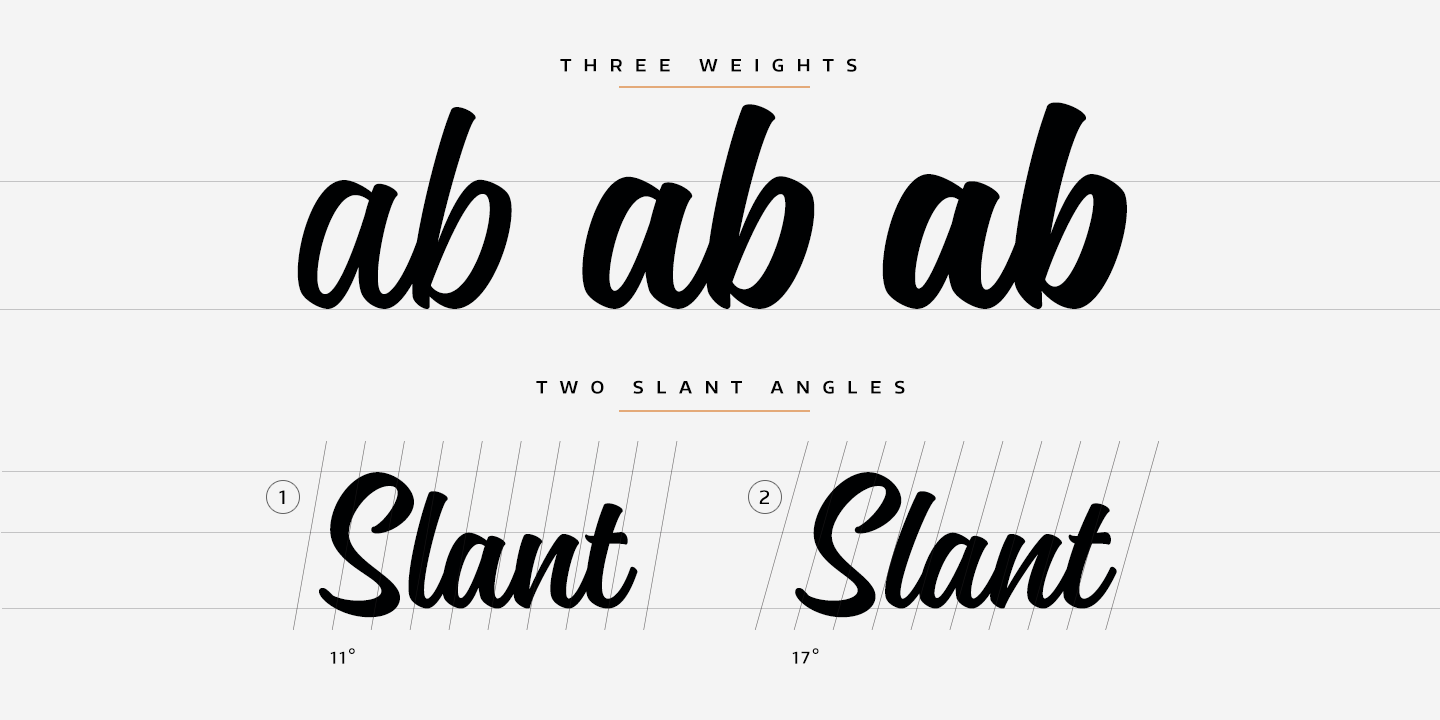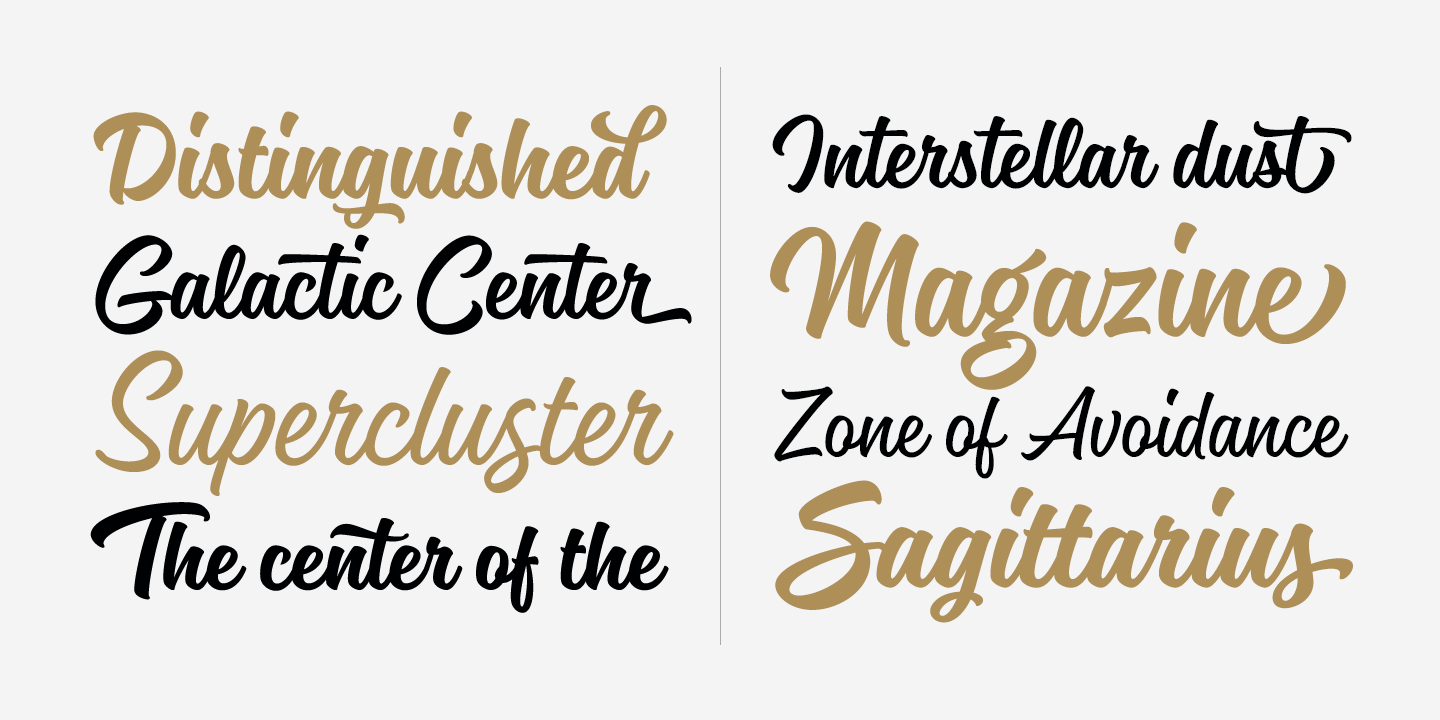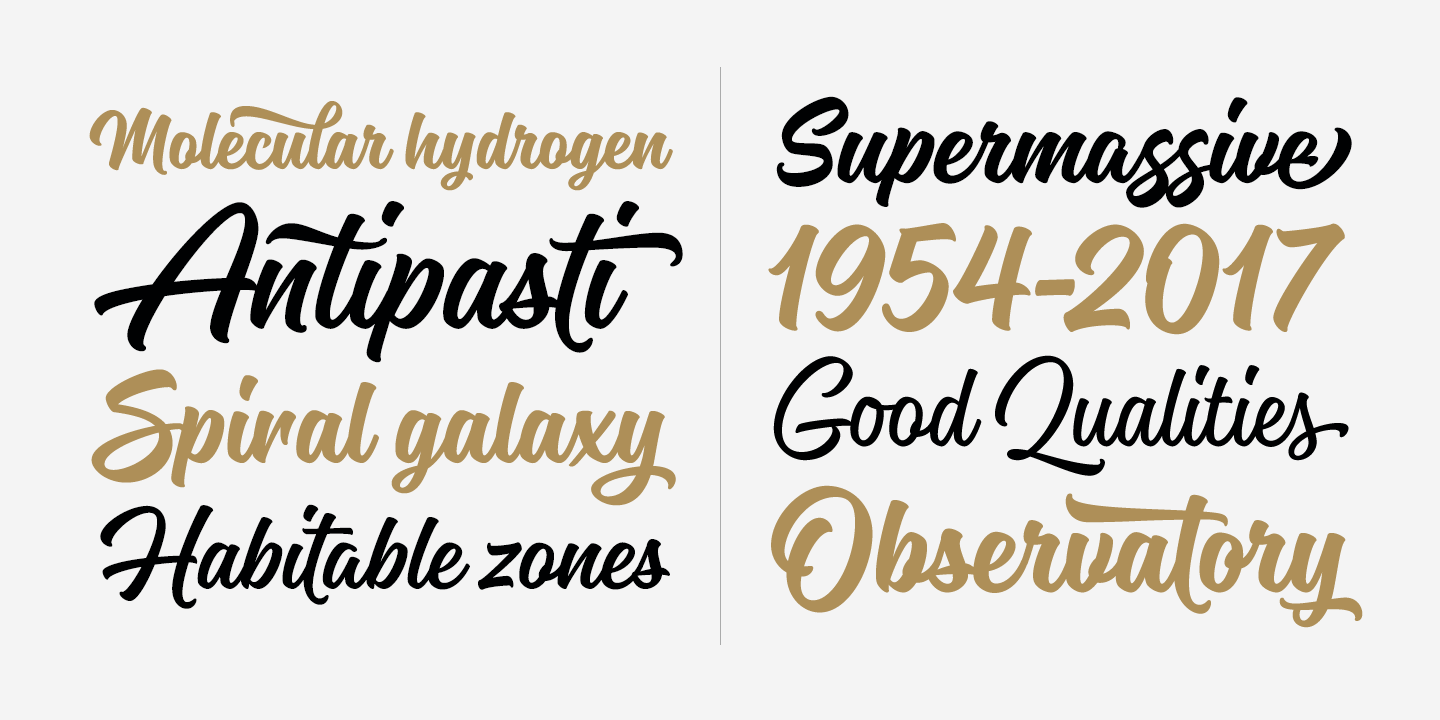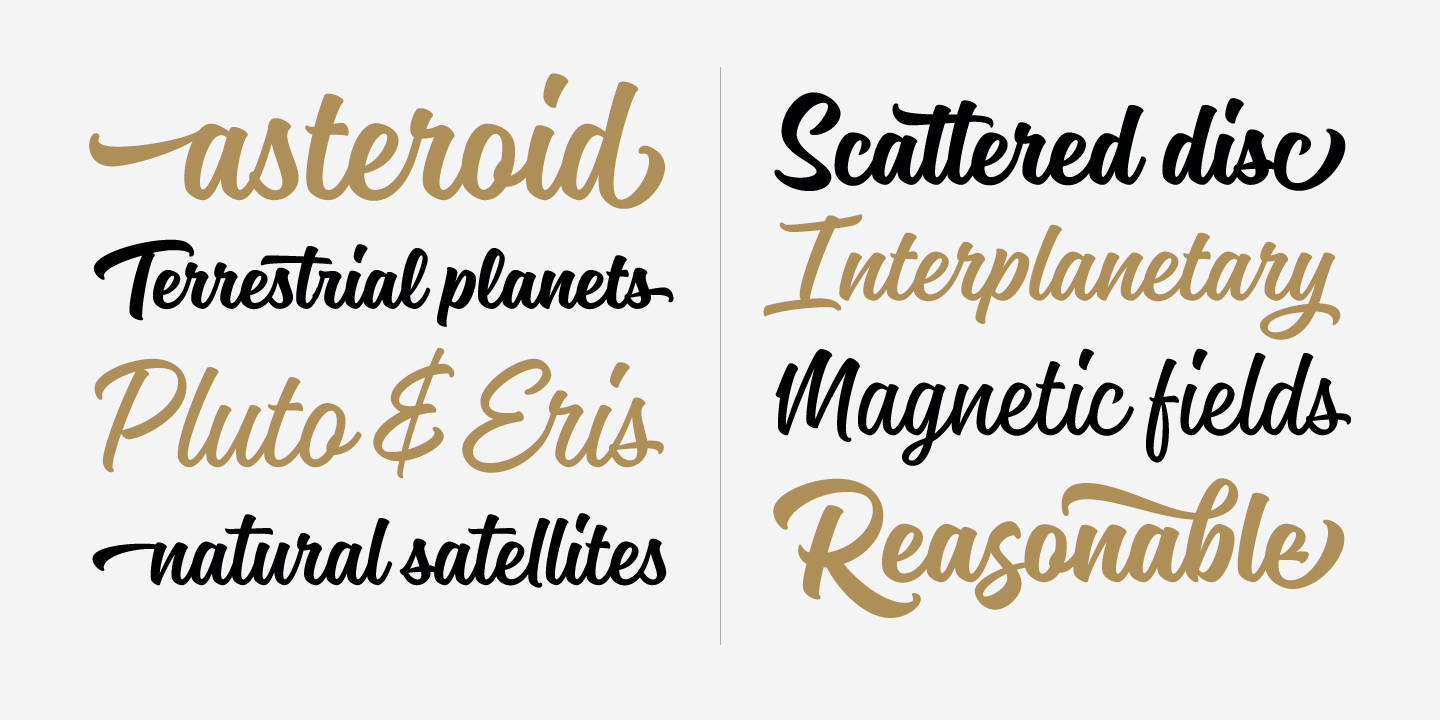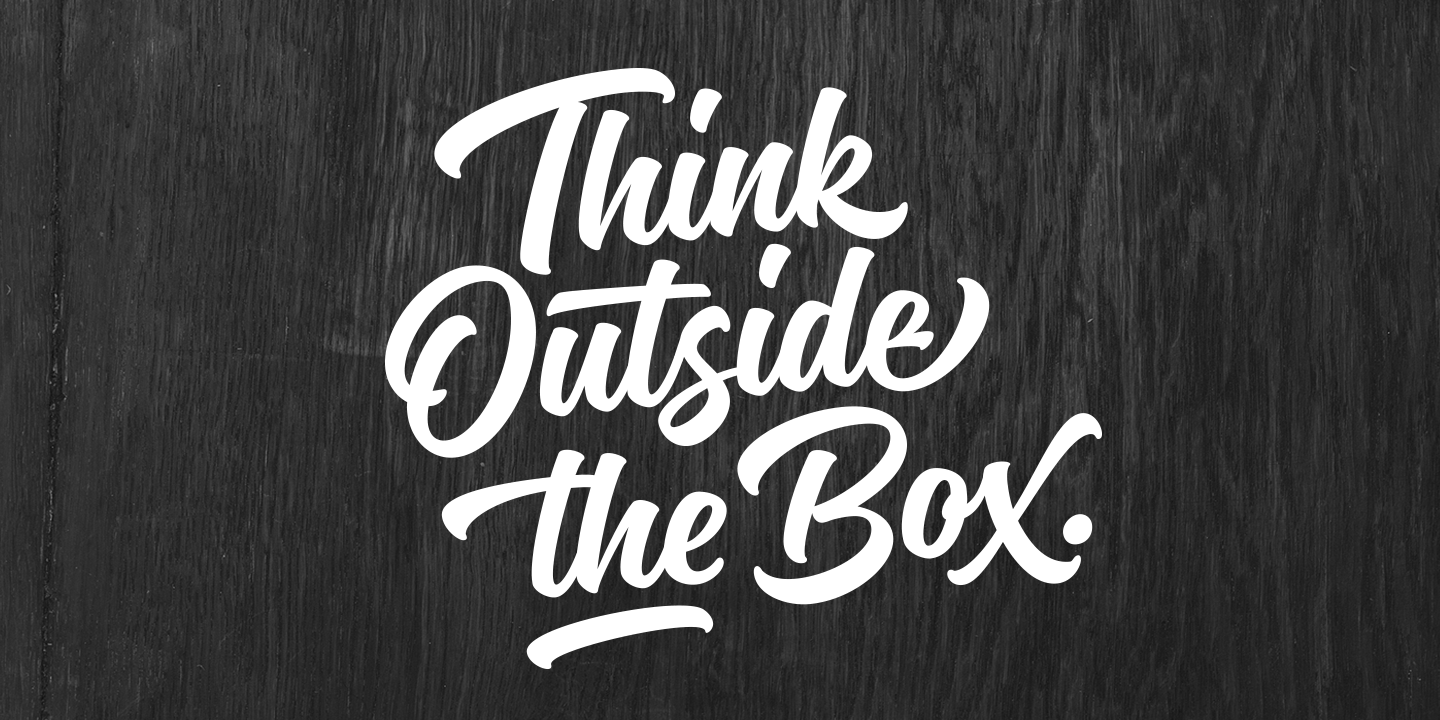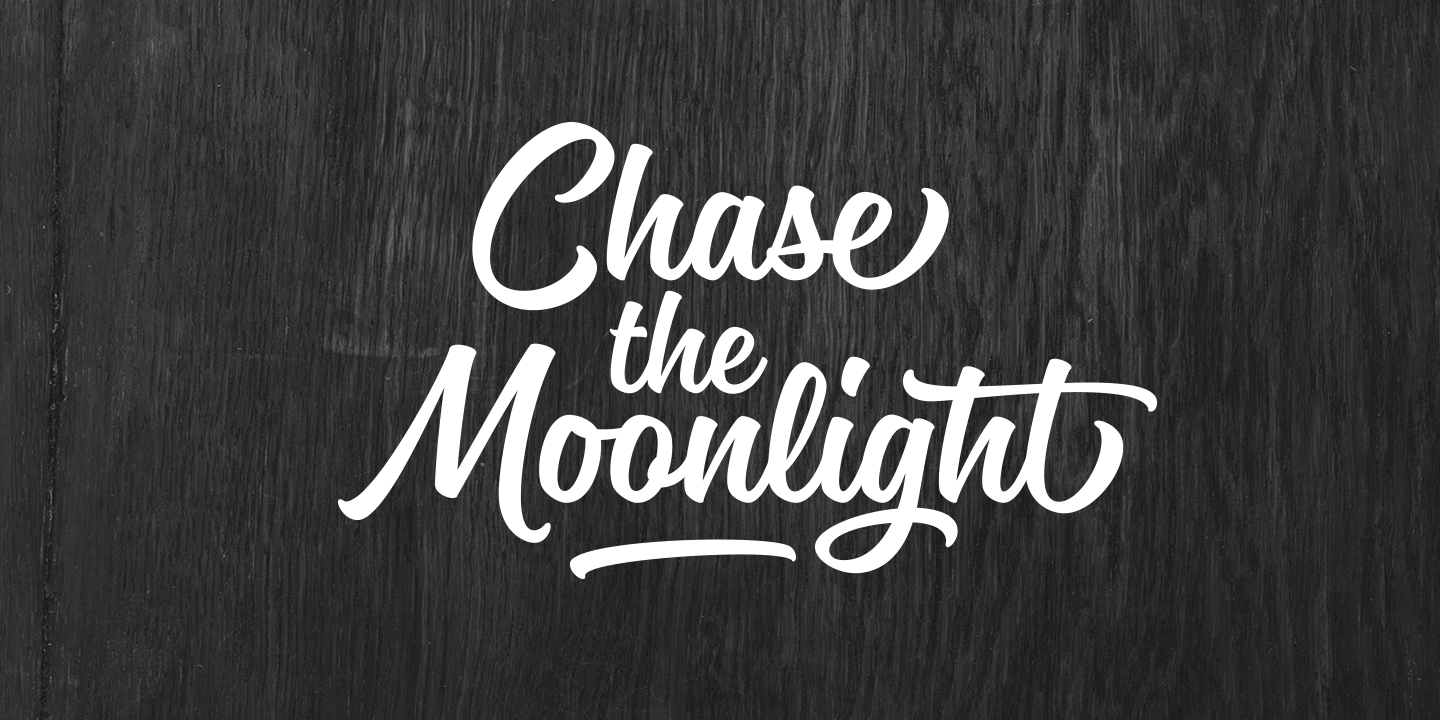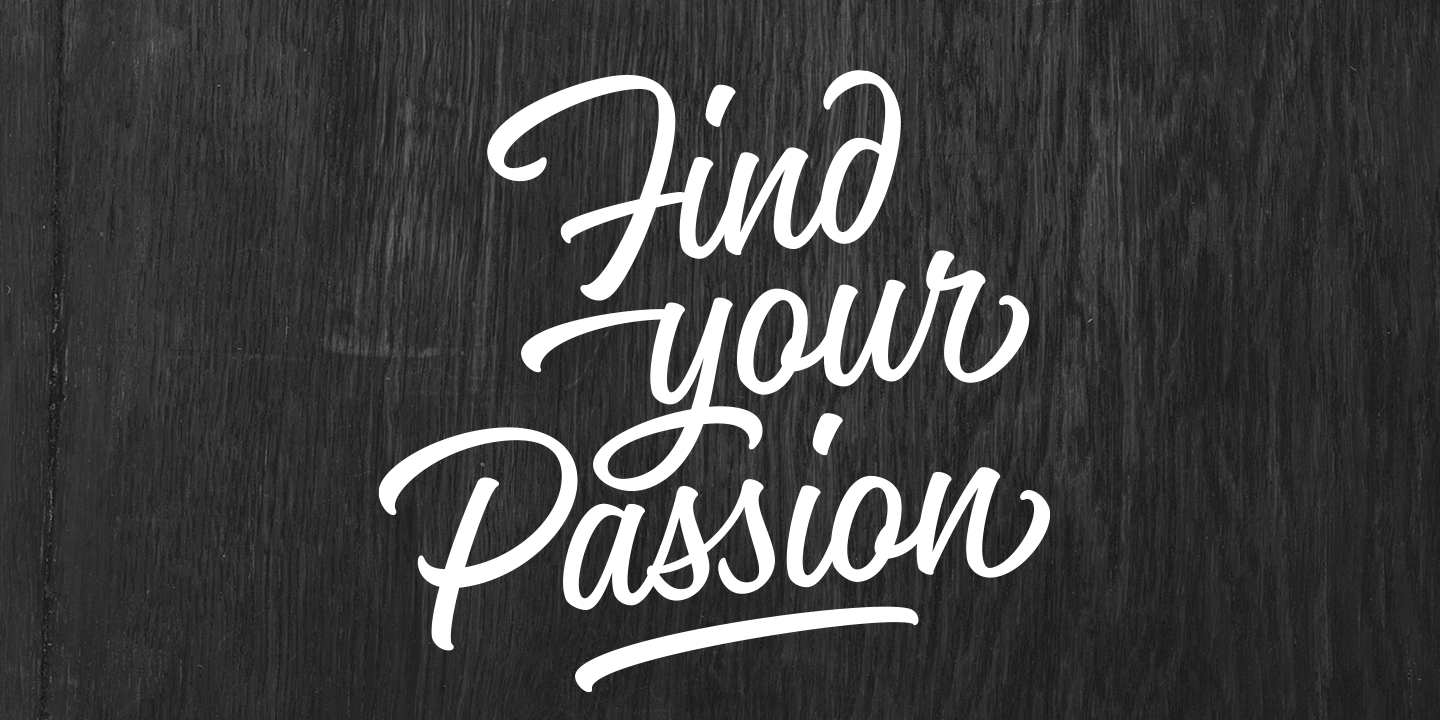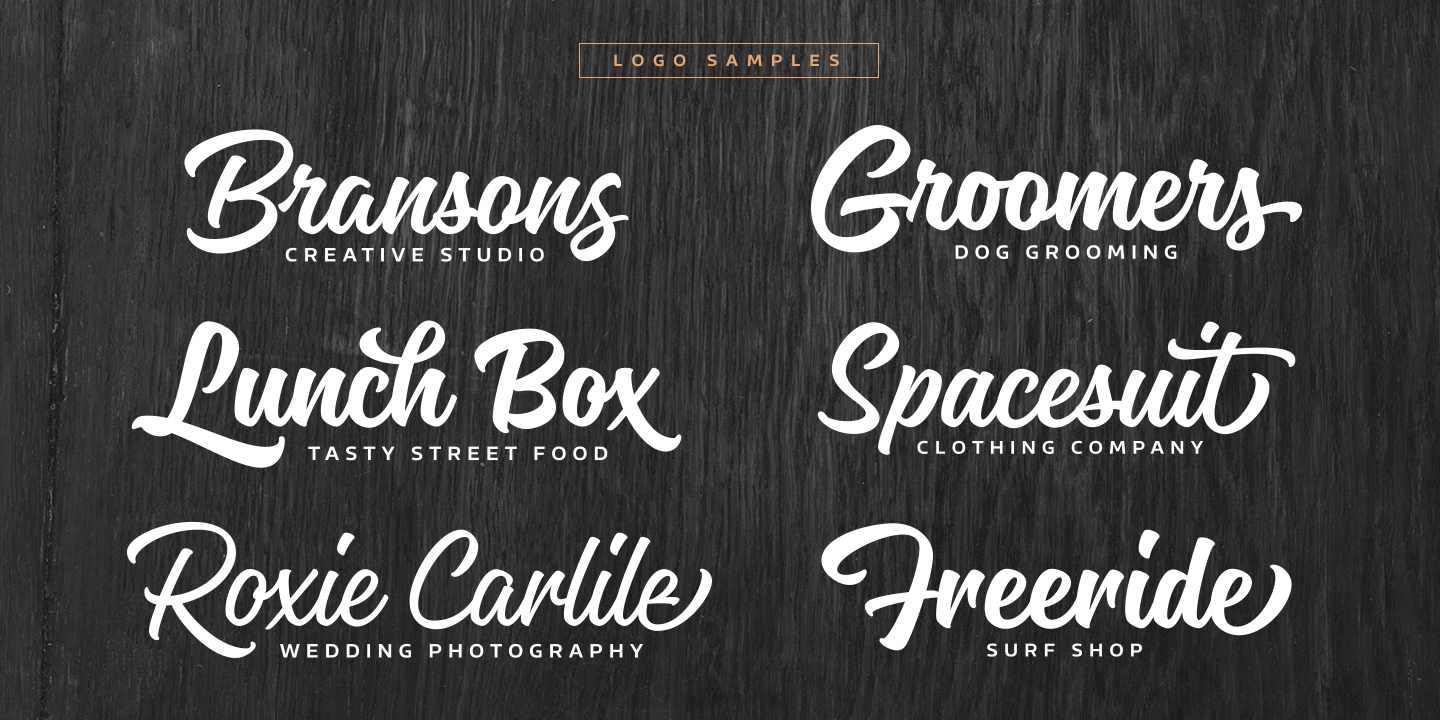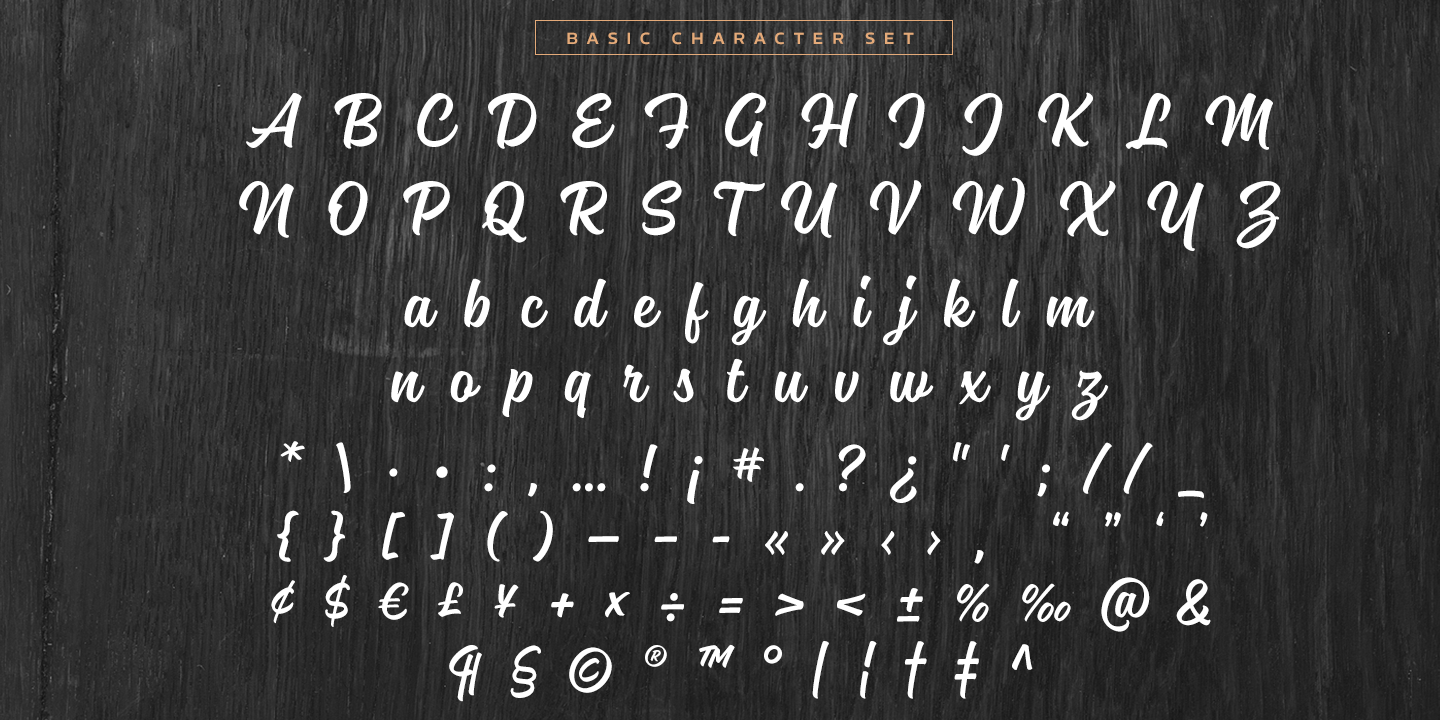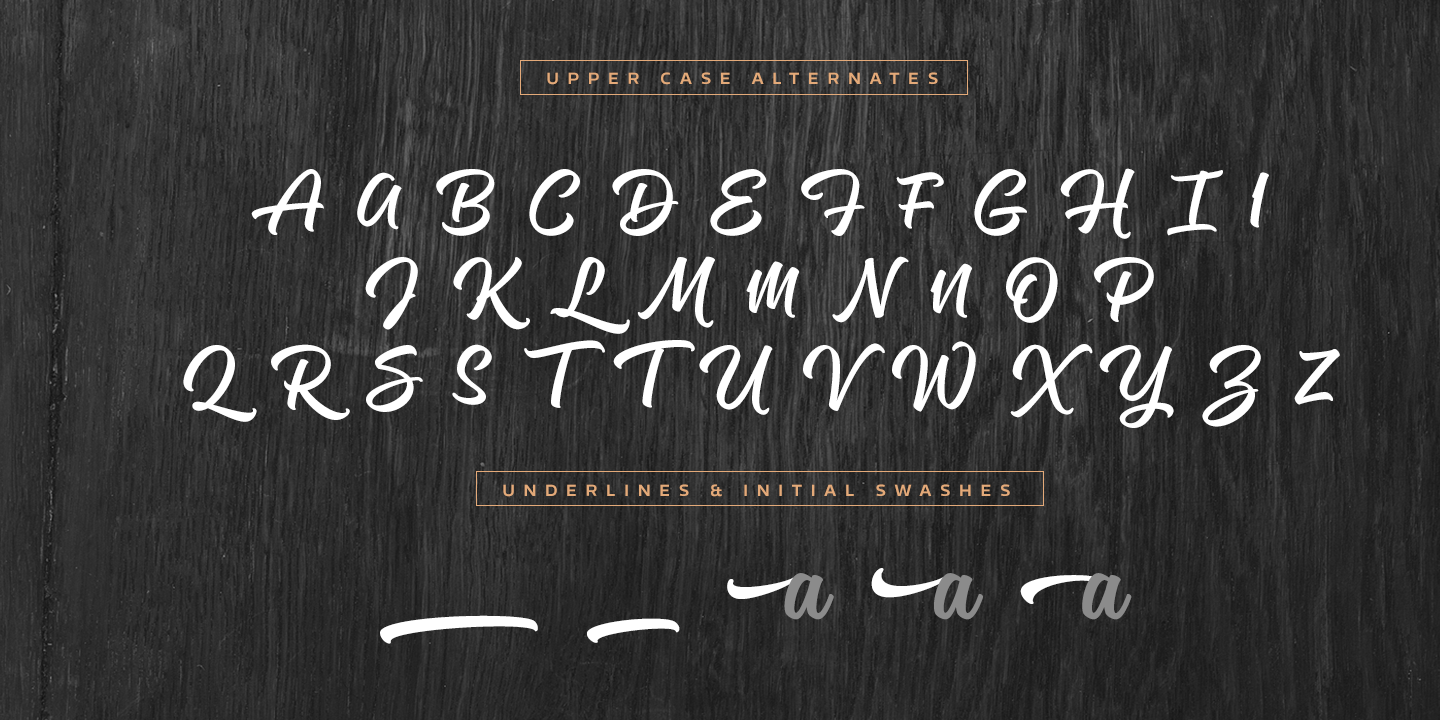
Magneton
Magneton is a brush script typeface with three weights and two slant angles, each simulating the pressure of a brush pen. The light weight is written with a gentle pressure, while the bold one is written with more pressure, providing options for different looks and feels. Similarly, the two slant angles create two distinct styles: a casual one and a dynamic one.
Magneton also includes several alternates and swash characters, offering two sets of uppercase letters - one basic and one flamboyant - and a plethora of lowercase alternates, including two styles of end swashes, underlines, ascender and descender swashes, and more. To better understand the options available, feel free to explore the images and glyph set. With Magneton, you can customize your text to look and feel like it's written with an actual brush pen!